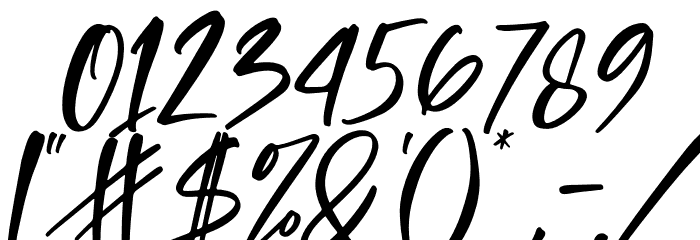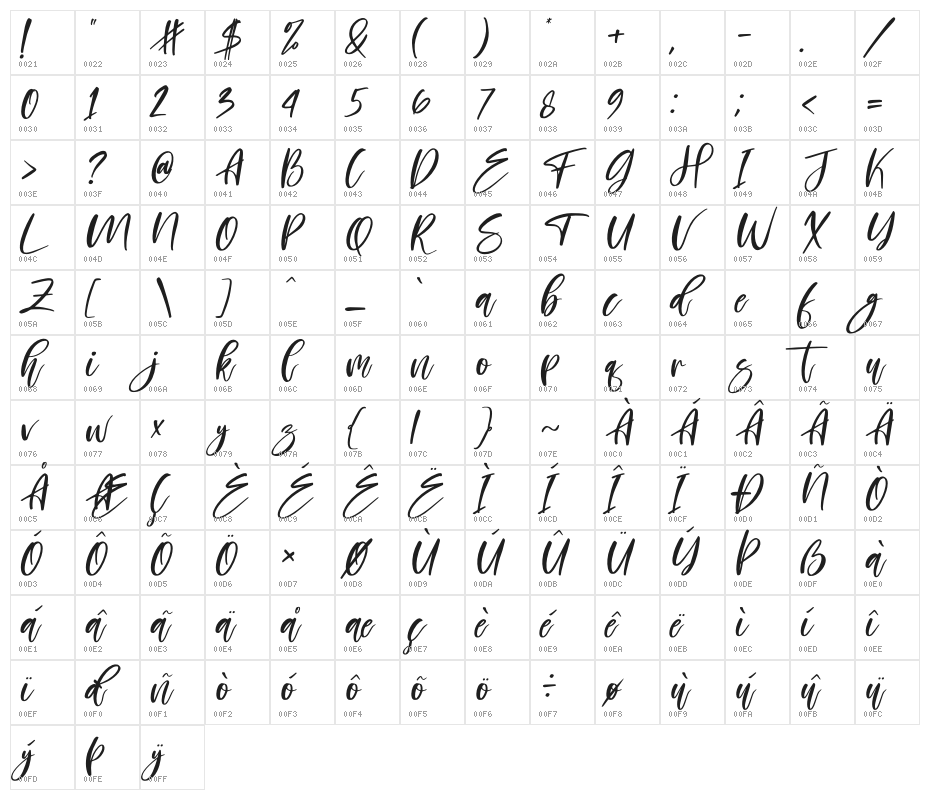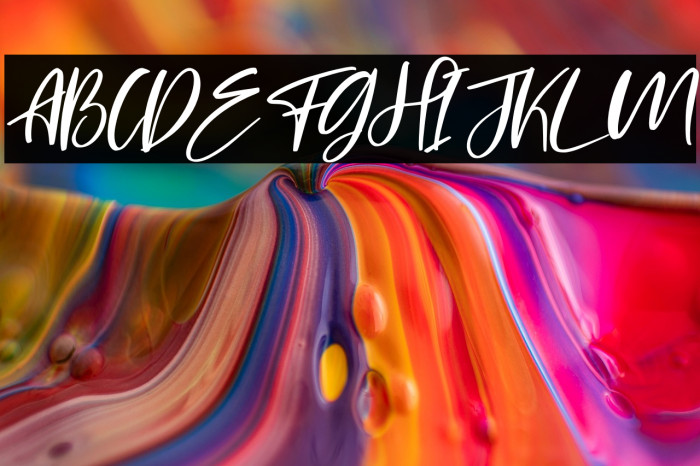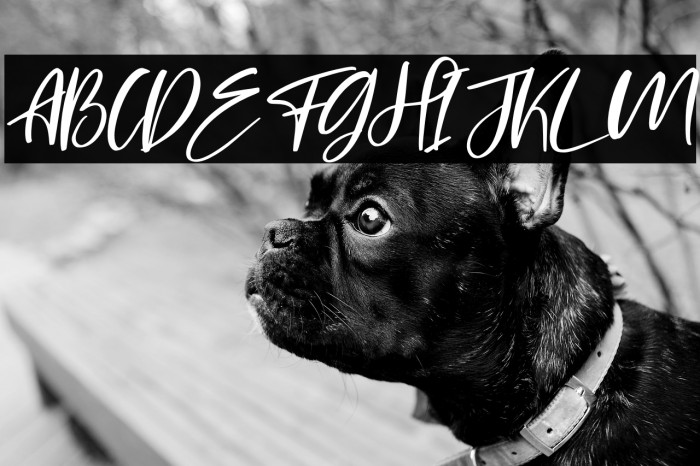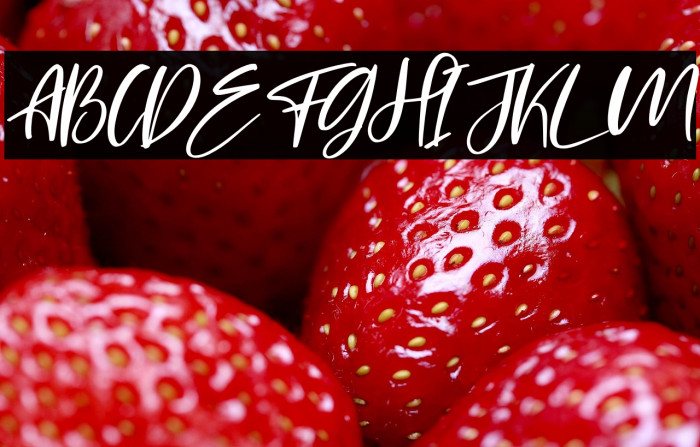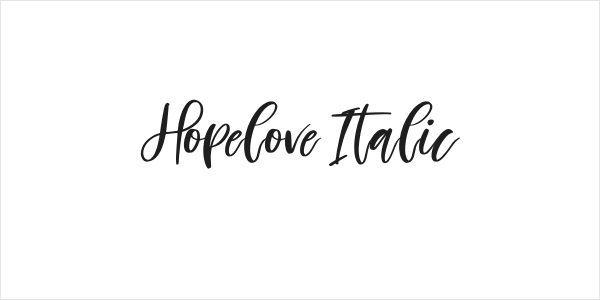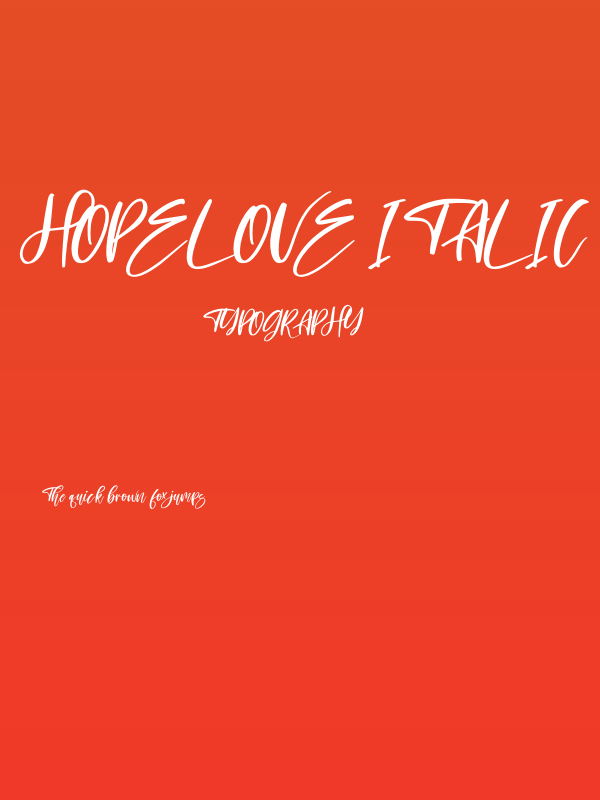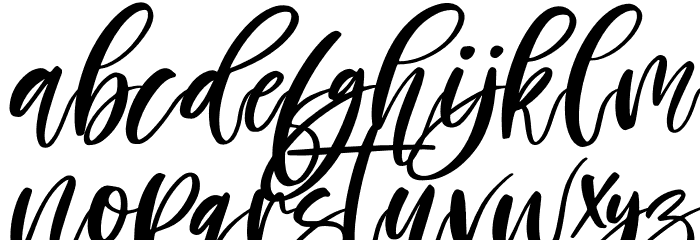
Hopelove Italic Font
Hopelove Italic Description
This font exudes a dynamic and expressive style, characterized by its flowing, cursive script that mimics the fluidity of natural handwriting. The letters are elegantly slanted, giving a sense of movement and grace. Each character is crafted with a bold, confident stroke, creating a striking contrast between thick and thin lines. The uppercase letters are particularly prominent, with sweeping curves and loops that add a touch of flair. The lowercase letters maintain a consistent rhythm, enhancing readability while preserving the artistic flair. The numerals and special characters are designed to complement the alphabet, featuring similar stylistic elements that ensure cohesion throughout the typeface.